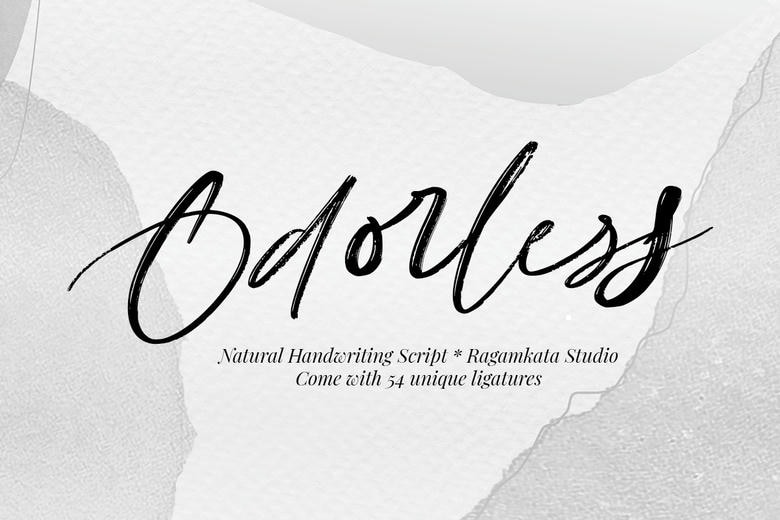
Odorless Font
Hello Odorless An inky and imperfect script font font (with the bonus of 54 additional Opentype ligatures to further give it a naturally handwritten style). Just be sure you have your ligatures set to on and you will see the magic as you type. Perfect when you want a handwritten quote, note, label, branding or any project that requires the real sense of handwritings.
Odorless Brush Script Font